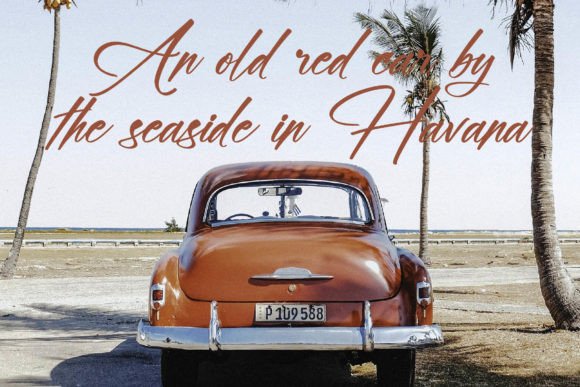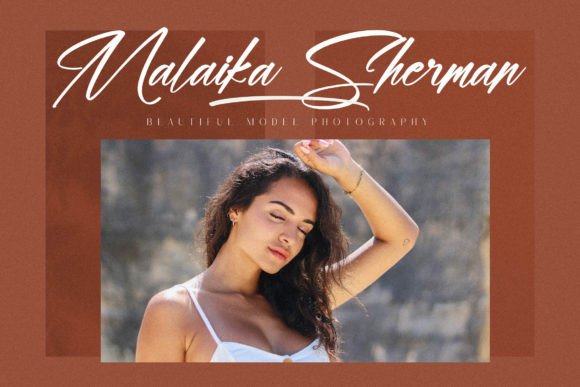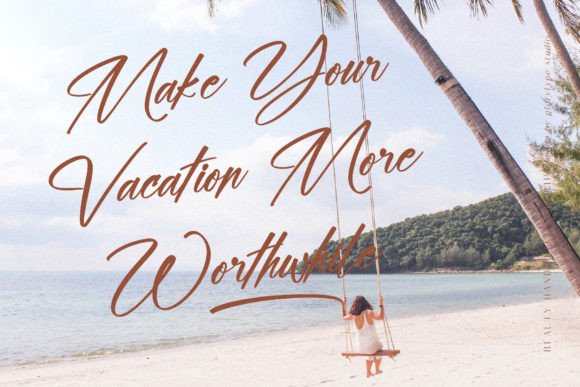
Introduction to Melttones Stafford Font
Melttones Stafford – Beauty Handwritten Script suitable for any projects such as logos, branding projects, homeware designs, product packaging, mugs, quotes, posters, shopping bags, t-shirts, book covers, name cards, invitation cards, greeting cards, labels, photography, watermark, special events, and all your other lovely projects that need a beautiful script taste.
Key Features of Melttones Stafford Font
Why Choose Melttones Stafford Font?
Melttones Stafford Font offers exceptional quality and versatility, making it a valuable addition to your design toolkit. Whether you’re creating for personal projects or commercial use, Melttones Stafford Font delivers professional results.